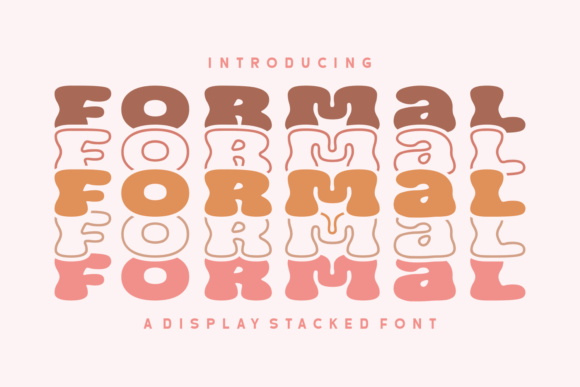
Formal Font: Elevate Your Creative Projects with Elegance and Sophistication
In the realm of typography, a well-crafted font can make all the difference in elevating your creative projects to new heights. Introducing Formal, an incredibly unique stacked display font that is poised to become a true favorite among designers and creatives alike. With its masterful design and versatility, Formal has the potential to bring each of your creative ideas to the highest level, adding a touch of elegance and sophistication to any project.
What Makes Formal Font Stand Out?
Formal is not just another font; it’s a carefully crafted typeface that boasts a range of features that set it apart from the rest. Here are some of the key characteristics that make Formal a standout:
- Stacked Design: Formal’s stacked design gives it a unique and distinctive look that’s sure to grab attention. The font’s letters are carefully arranged to create a sense of depth and dimensionality, adding visual interest to any project.
- Elegant and Sophisticated: Formal exudes elegance and sophistication, making it perfect for high-end projects that require a touch of luxury. Whether you’re designing a logo, brochure, or website, Formal is sure to impress.
- Versatile: Despite its unique design, Formal is incredibly versatile and can be used in a wide range of projects, from print materials to digital applications.
- Highly Legible: Formal is designed to be highly legible, even at small sizes, making it perfect for use in body text as well as headlines.
The Benefits of Using Formal Font
So why choose Formal font for your next project? Here are just a few benefits of using this exceptional typeface:
- Adds Visual Interest: Formal’s unique stacked design adds visual interest to any project, making it perfect for designers looking to create something that stands out from the crowd.
- Elevates Your Brand: With its elegant and sophisticated design, Formal is sure to elevate your brand and add a touch of luxury to any project.
- Versatile: Formal can be used in a wide range of projects, from print materials to digital applications, making it a great addition to any designer’s toolkit.
- Time-Saving: With Formal, you can create professional-looking projects in no time. The font’s highly legible design means you can focus on creating great content rather than worrying about readability.
How to Use Formal Font in Your Projects
So how can you use Formal font in your projects? Here are a few ideas to get you started:
- Logos and Branding: Formal’s elegant and sophisticated design makes it perfect for use in logos and branding materials.
- Print Materials: Formal can be used in a wide range of print materials, including brochures, flyers, and posters.
- Digital Applications: Formal is also perfect for use in digital applications, such as websites, social media graphics, and email marketing campaigns.
- Packaging: Formal’s unique stacked design makes it perfect for use in packaging materials, such as labels and product packaging.
Pairing Formal Font with Other Fonts
While Formal is a stunning font in its own right, it can also be paired with other fonts to create a unique and visually appealing look. Here are a few suggestions for pairing Formal with other fonts:
- Serif Fonts: Pairing Formal with a serif font, such as Times New Roman or Garamond, creates a classic and sophisticated look that’s perfect for high-end projects.
- Sans-Serif Fonts: Pairing Formal with a sans-serif font, such as Helvetica or Arial, creates a modern and clean look that’s perfect for digital applications.
- Script Fonts: Pairing Formal with a script font, such as Lobster or Pacifico, creates a elegant and sophisticated look that’s perfect for luxury brands.
In conclusion, Formal font is an exceptional typeface that is sure to elevate your creative projects to new heights. With its unique stacked design, elegant and sophisticated look, and versatility, Formal is the perfect choice for designers and creatives looking to add a touch of luxury to their projects. Whether you’re designing a logo, brochure, website, or packaging materials, Formal is sure to impress.